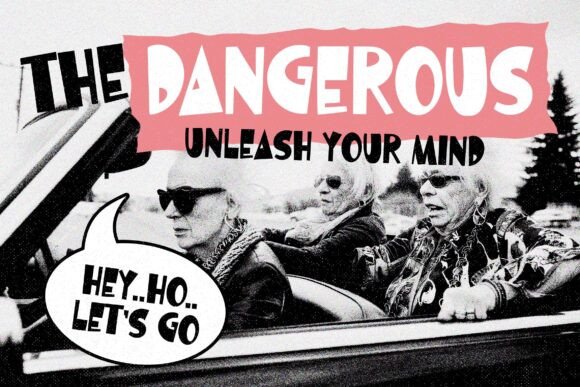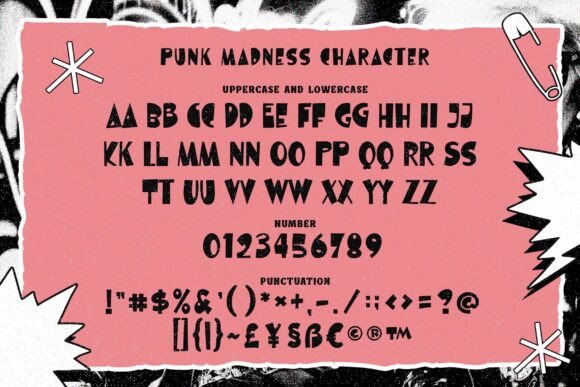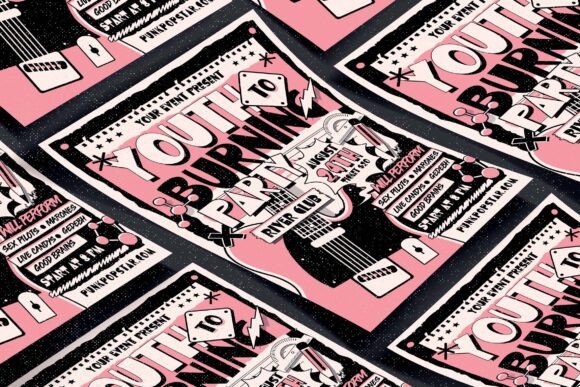
Punk Madness Font
About the Punk Madness Font
Presenting Punk Madness Font, a unique and stylish typeface that will make your work stand out. Punk Madness a punk-style font is made for any professional project branding, such as logotypes, watermarks, posters, branding, promotions, product packaging, etc. Every letter has a punk design theme.
Punk Madness font includes a full set of food theme uppercase and lowercase letters, numerals, and punctuation. This font has a punk style. See the previews above to get some inspiration on how to use them. Happy designing!
Punk Madness excels in headline applications, short impactful phrases, and logo design where its rebellious energy can shine. It’s ideal for projects targeting a younger demographic or those with a bold, edgy aesthetic such as music-related branding, streetwear apparel, or rebellious spirit brands. Avoid using it for large blocks of text or body copy; its strong character would make extended reading difficult.
For optimal visual balance, pair Punk Madness with a clean, minimalist sans-serif like Montserrat or a geometric sans-serif such as Futura for a striking contrast. A more subtle pairing could involve a classic serif like Garamond to offer a touch of sophistication and offset the font’s raw energy.
The font’s core personality is aggressive, rebellious, and highly expressive. It’s best suited for projects that demand attention and convey a sense of raw energy and nonconformity.
Punk Madness Font Usage Examples
Punk Madness Font Example